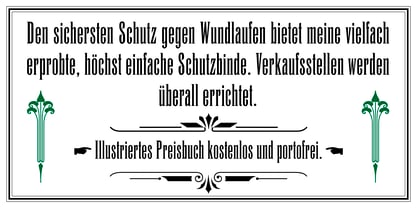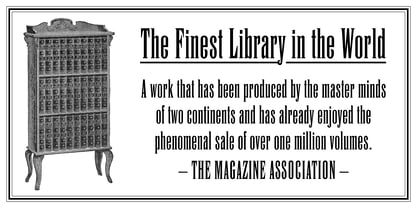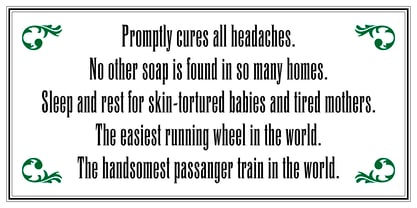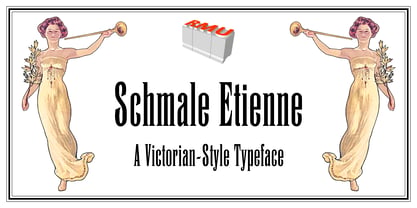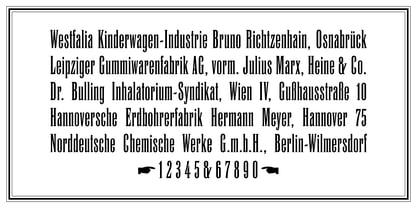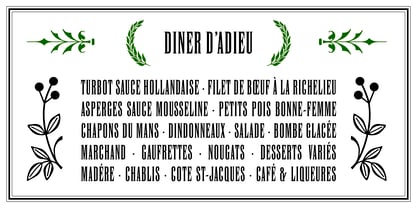
Schmale Etienne™
by RMU
The Schmale Etienne Font Family was designed by Ralph M. Unger and published by RMU. Schmale Etienne contains 1 styles. More about this family
This narrow Victorian-style typeface is a revival of an original German hot-metal release around the turn of the century. It fits well into narrow columns of printings representing the Victorian style. This font is especially suitable for reprints with the appropriate historical background. It covers most of the West European languages, like English, German, French, Italian, Spanish etc.
Designers: Ralph M. Unger
Foundry: RMU